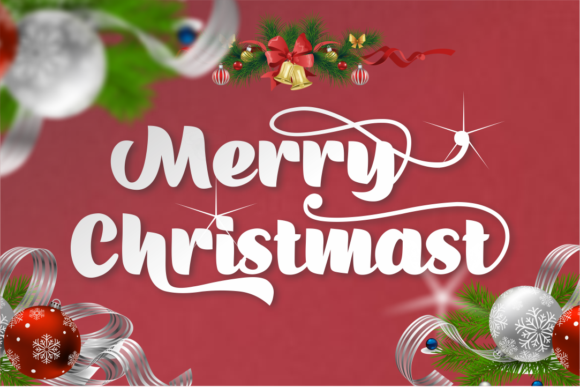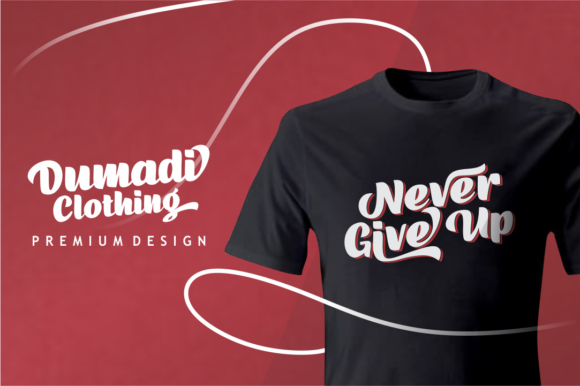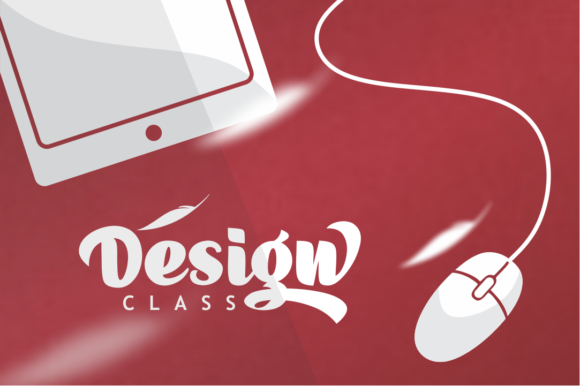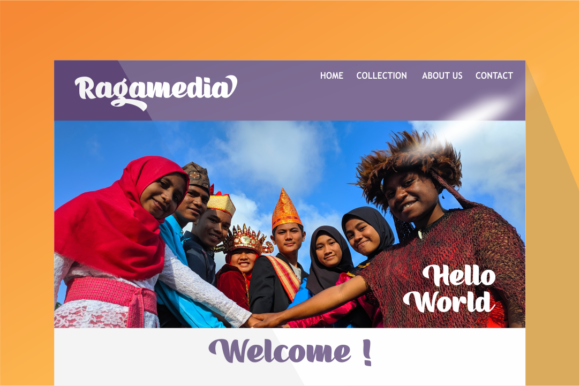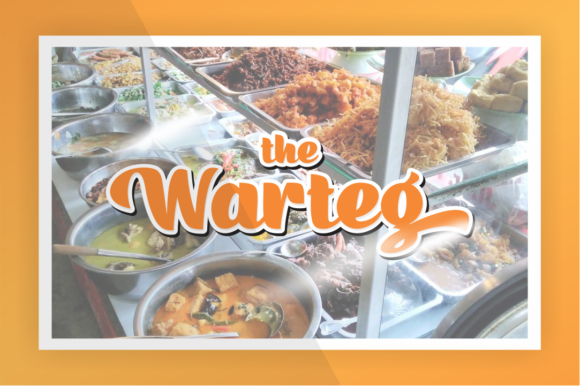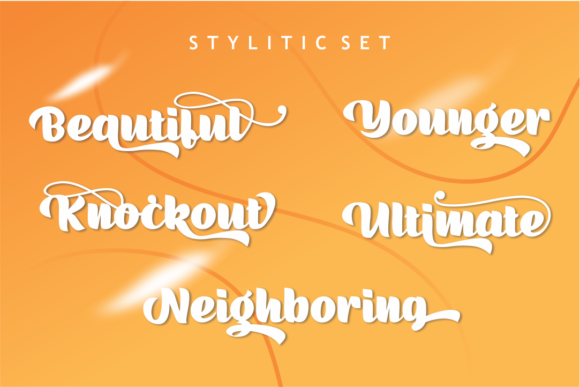
Introduction to Ruang Jenuh Font
Have you ever stared at a blank canvas, struggling to bring your creative vision to life? For designers, this moment is all too familiar. But what if you had the perfect tool to spark your imagination and turn your ideas into stunning reality? Enter the Ruang Jenuh Font, a high-quality, handwritten font that’s about to become your new best friend.
As a valuable resource for designers, the Ruang Jenuh Font offers a fresh and unique style that’s perfect for branding, social media posts, t-shirts, and much more. With its transparent background and free download option, you can easily integrate it into your creative project and take it to the next level. Whether you’re working on a small design project or a large-scale campaign, this font is sure to bring a touch of elegance and sophistication to your work.
Key Features of Ruang Jenuh Font
- High-quality font design perfect for creative projects and design resources, offering a unique and modern look.
- Transparent background, allowing for seamless integration with various design elements and backgrounds.
- Designed with a high resolution of 300 DPI, suitable for use in various creative projects, from print to digital media.
- Unique characteristics include a modern and sleek design, making it an excellent choice for designers working on creative projects.
Honest Review: Ruang Jenuh Font
I recently stumbled upon the Ruang Jenuh Font, and I must say it’s a game-changer for designers. This design resource offers a wide range of unique and stylish fonts that can elevate any creative project.
One of the standout features of the Ruang Jenuh Font is its high-quality design. Each font is meticulously crafted to provide a professional look and feel. The transparent background option allows for seamless integration into any design, making it a breeze to work with.
Here are some of the things that work well with the Ruang Jenuh Font:
- ✨ Unique and stylish font designs
- ✨ High-quality design and resolution
- ✨ Transparent background option for easy integration
- ⚠️ Limited font selection compared to other design resources
- ⚠️ Some fonts may not be compatible with older software
Overall, I’m impressed with the Ruang Jenuh Font. It’s a great addition to any designer’s toolkit, and I’d highly recommend it for any creative project. Just be aware of the limitations, and you’ll be golden.
How to Use Ruang Jenuh Font
Ruang Jenuh Font is a high-quality design resource that can elevate your creative project. With its unique style and transparent background, it’s perfect for adding a touch of sophistication to your designs.
Getting the Most Out of Ruang Jenuh Font
To get the most out of Ruang Jenuh Font, be sure to experiment with different font sizes, colors, and combinations to create unique and eye-catching designs.
Ruang Jenuh Font is perfect for a variety of creative projects, including:
- Branding materials
- Print materials